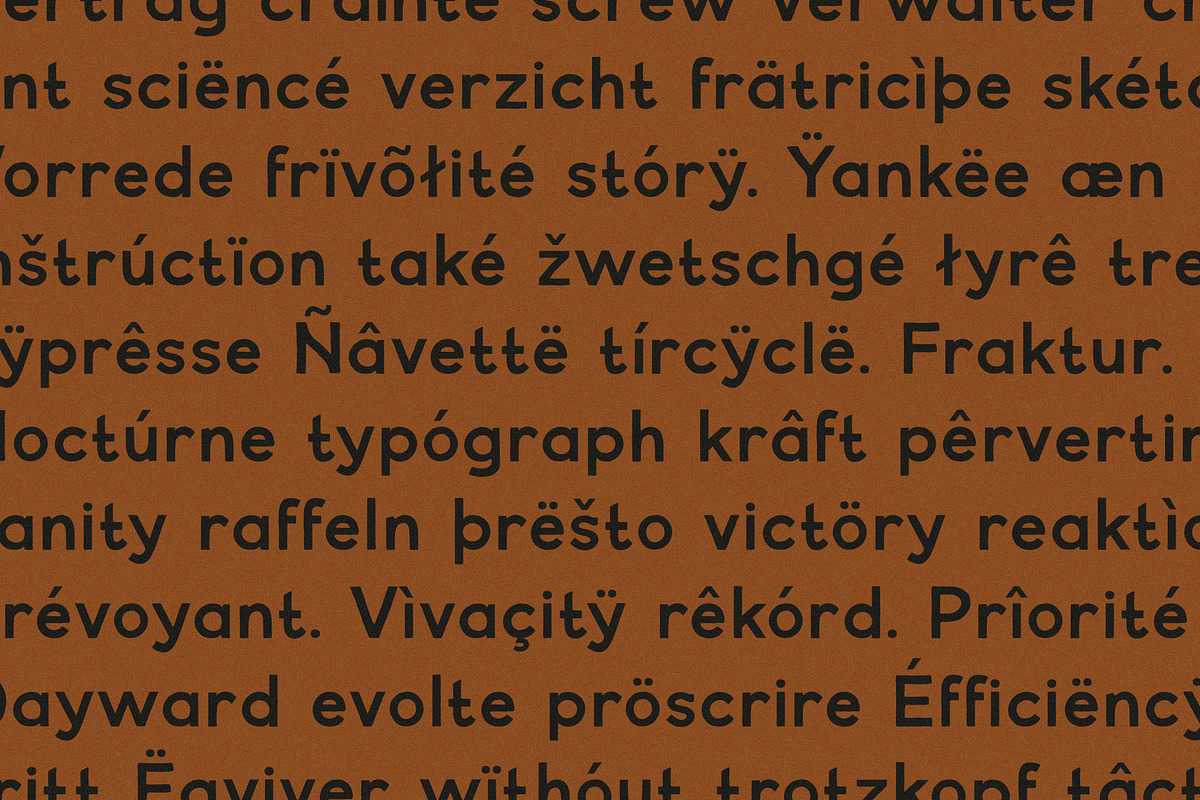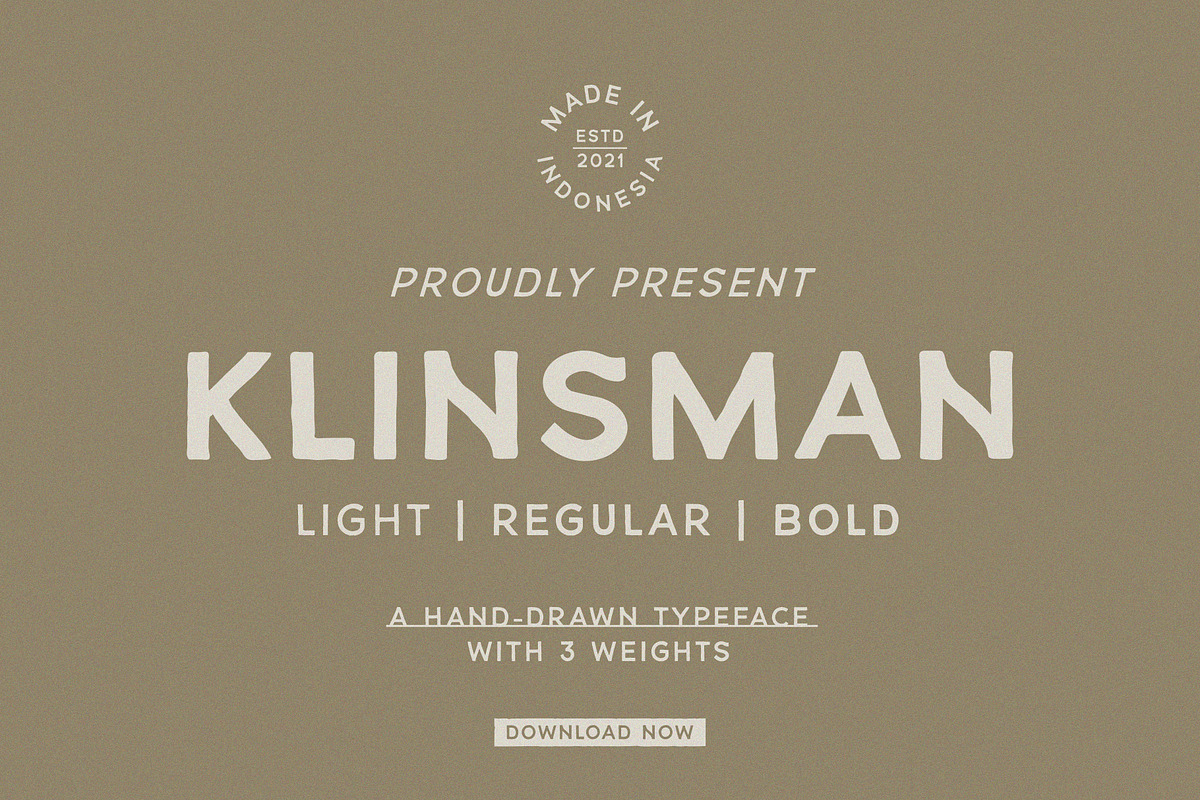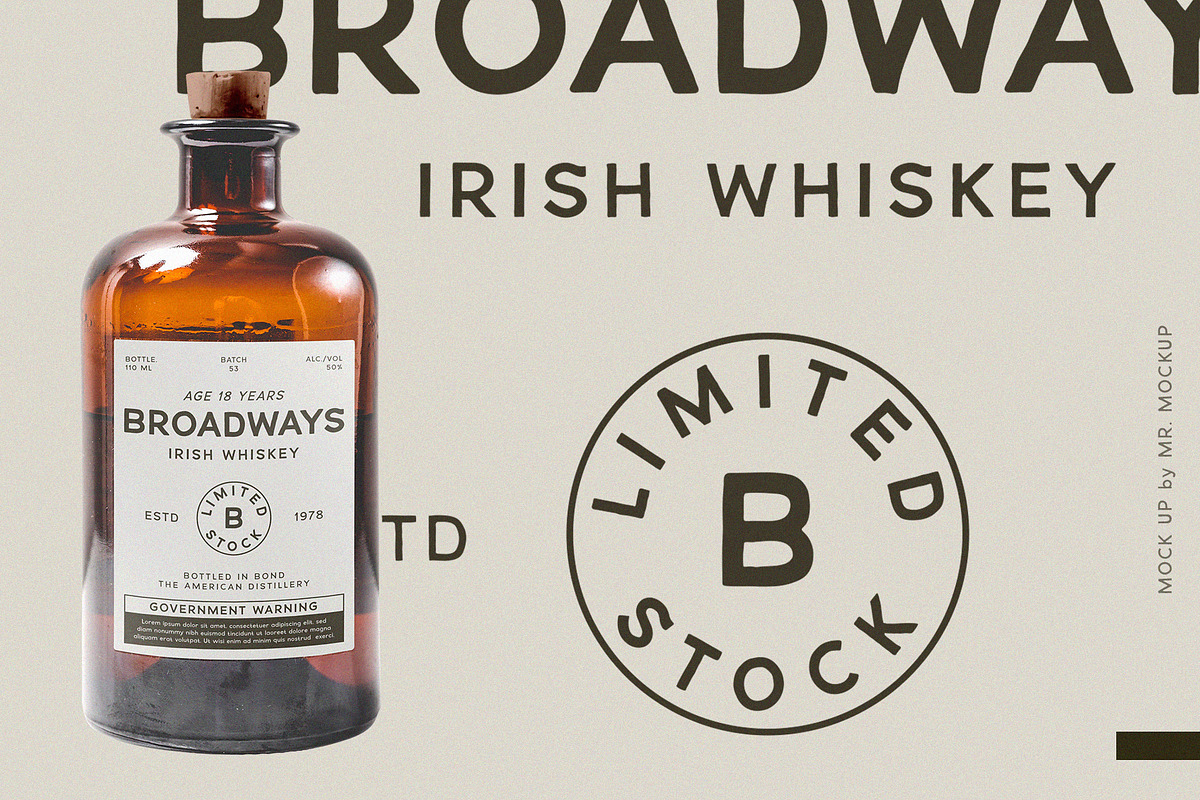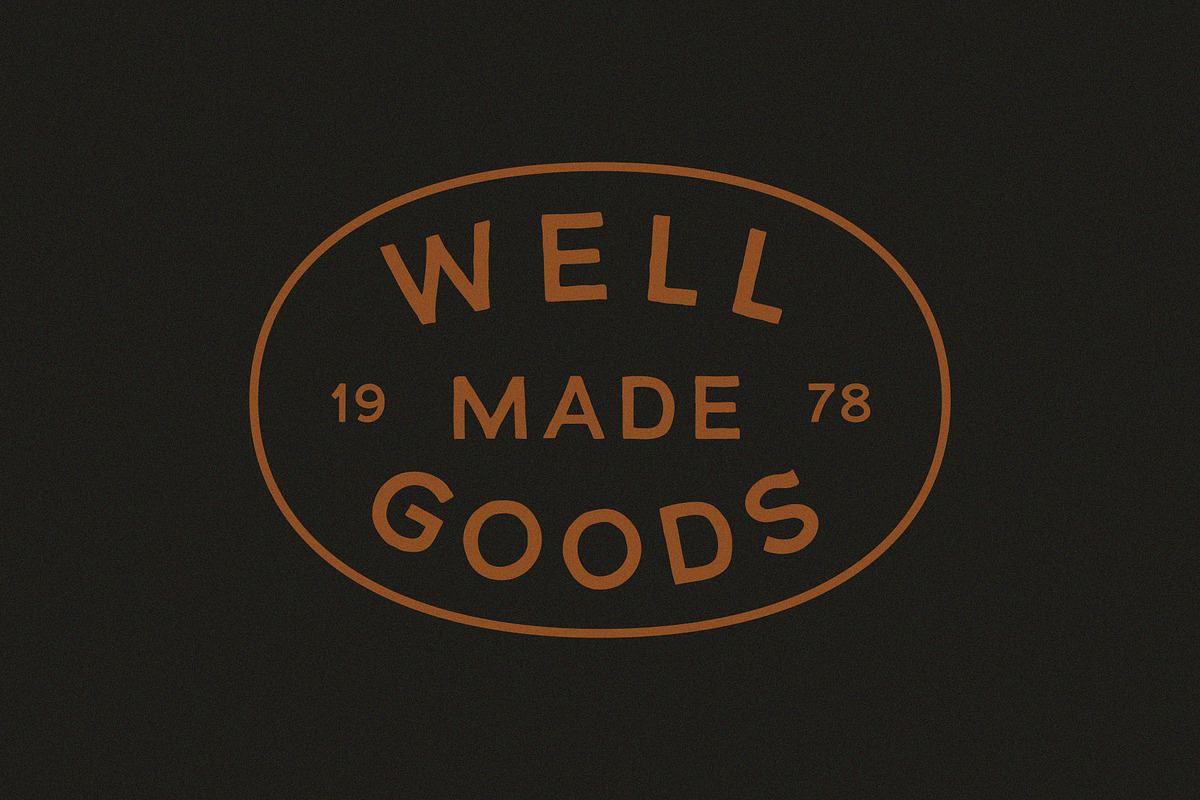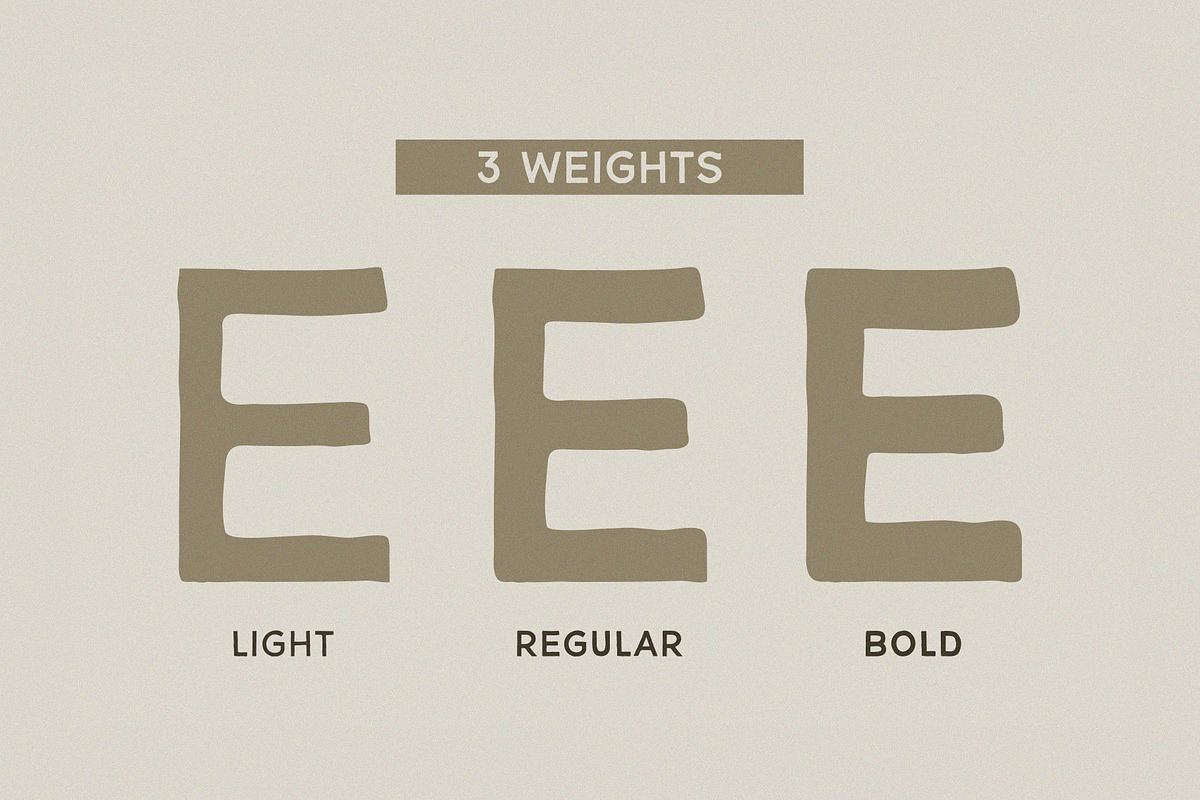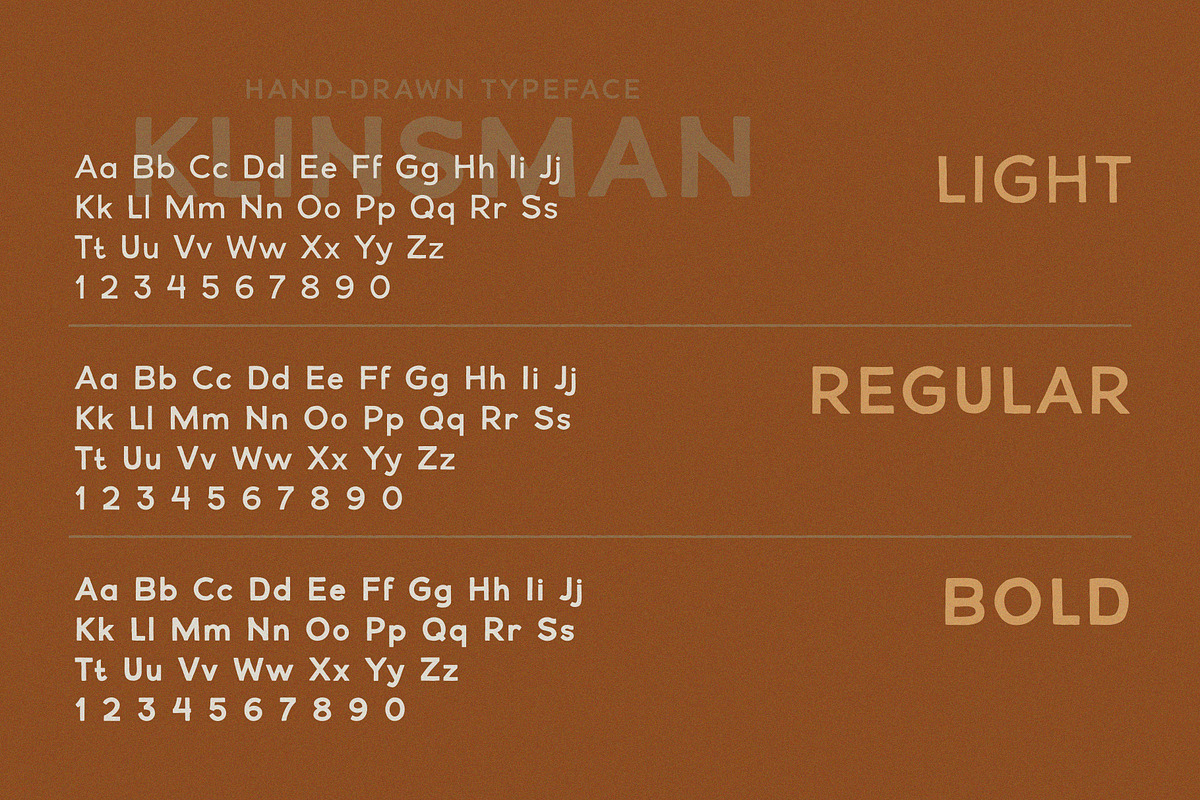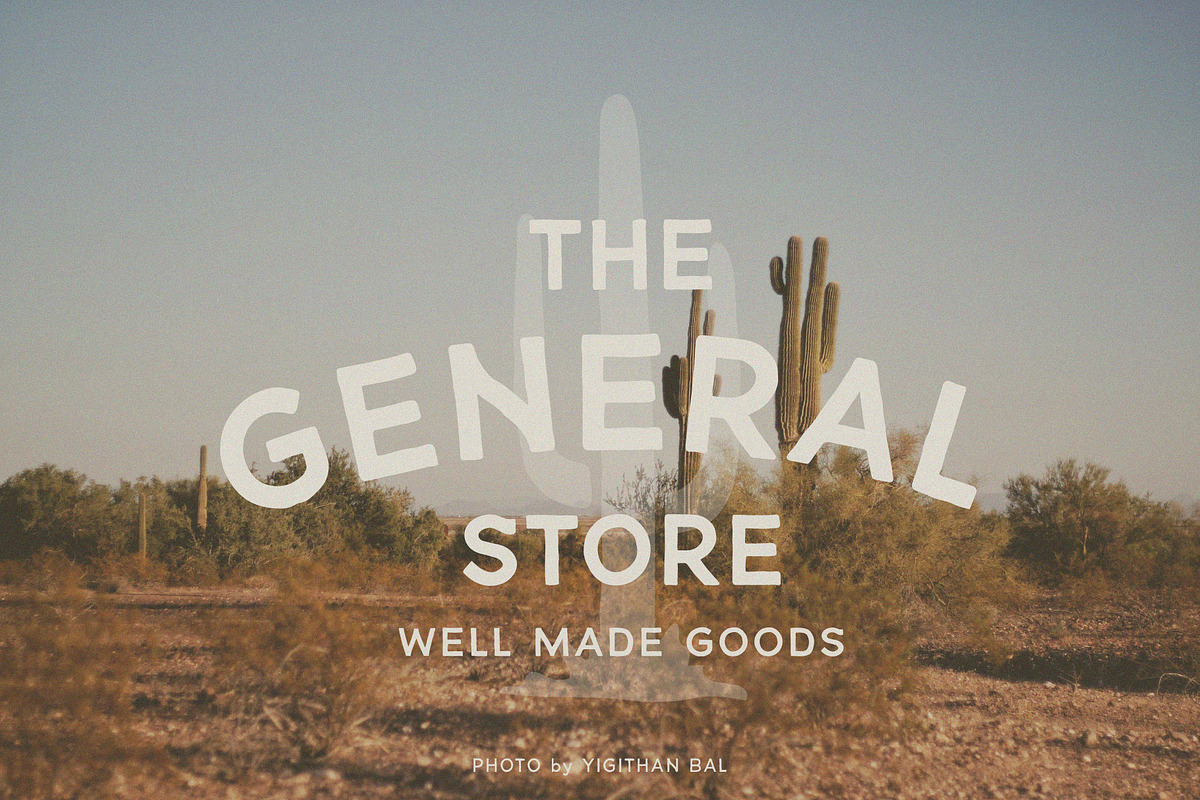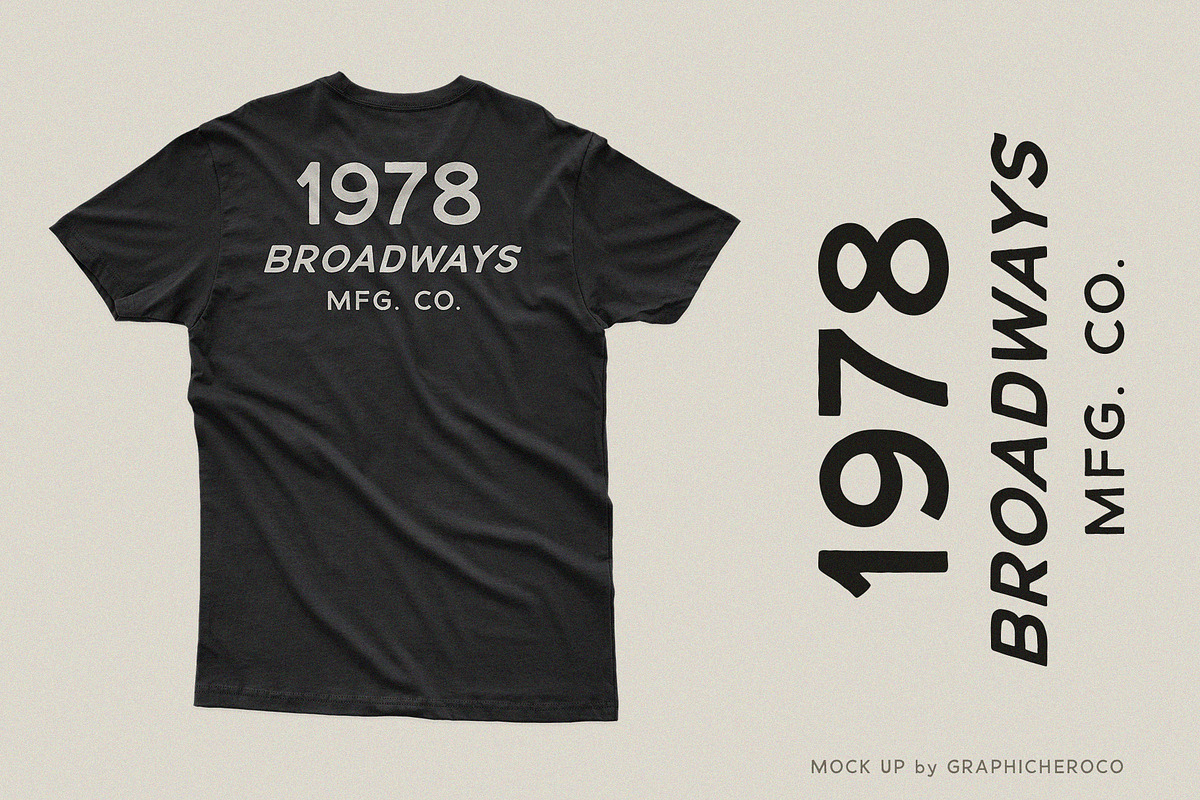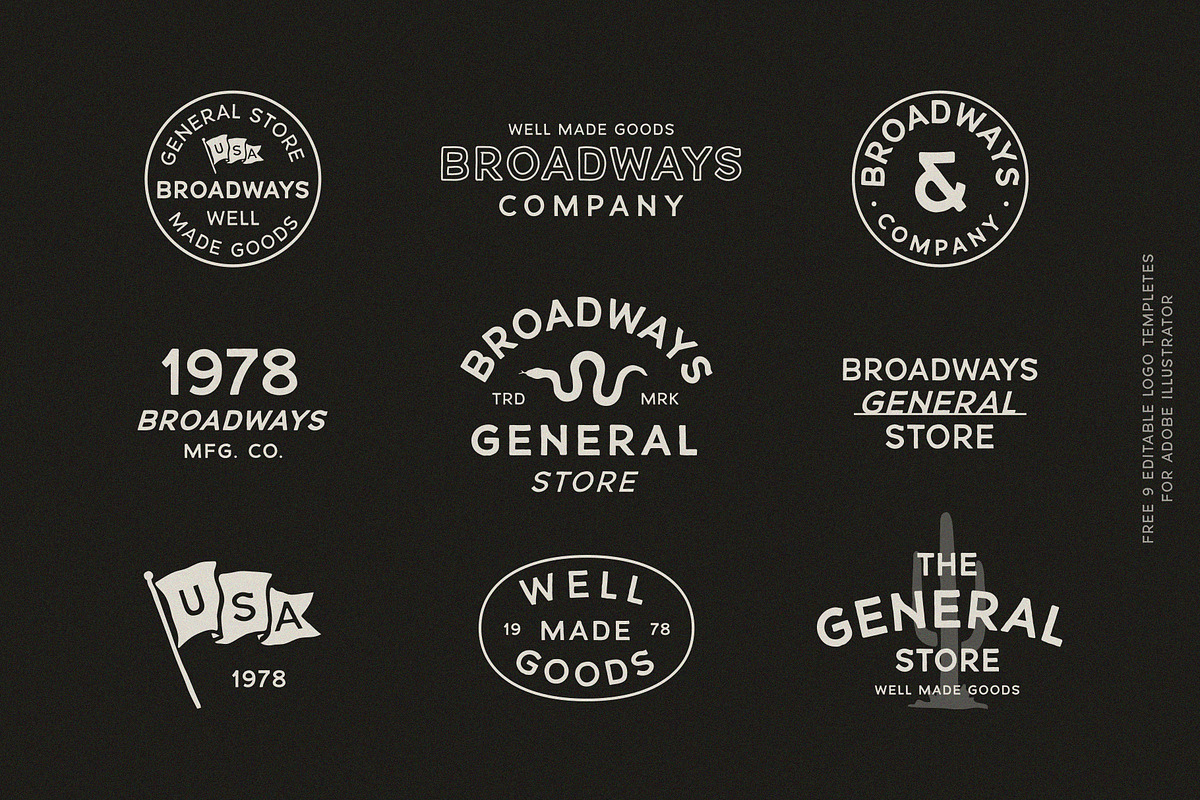
KLINSMAN: A Hand-drawn Typeface
Introducing, KLINSMAN -A Hand-drawn Typeface
KLINSMAN is font inspired by Akzidenz Groteks. It's a sans serif font with hand-drawn character specially designed to give the vintage feel you are looking for. Come with 3 weights: Light, Regular, and Bold. It works great for vintage branding, logo, t-shirts, label/badges design and more.
- Uppercase & Lowercase letters
- Number, Currency Symbols & Standard Punctuations
- Multilingual Support: ÀÁÂÃÄÅÇÐÈÉÊËÌÍÎÏÑØÒÓÔÕÖÙÜÚÛÝŸÆŒßÞþ